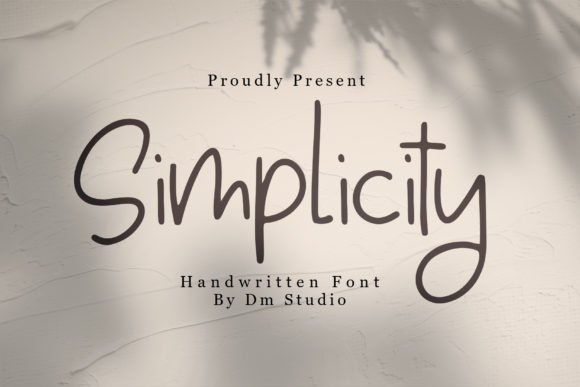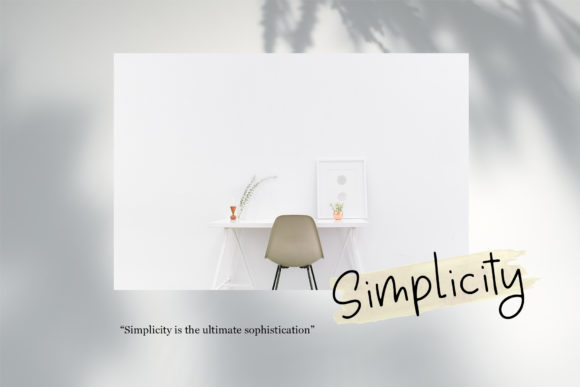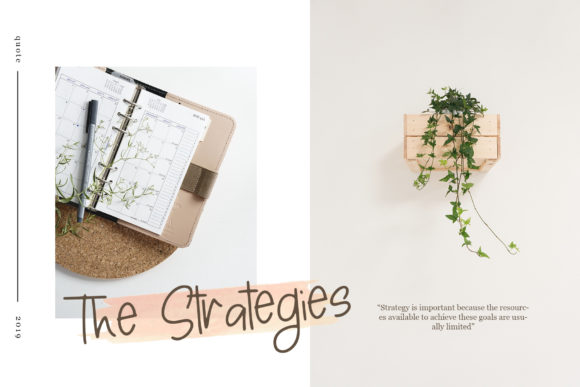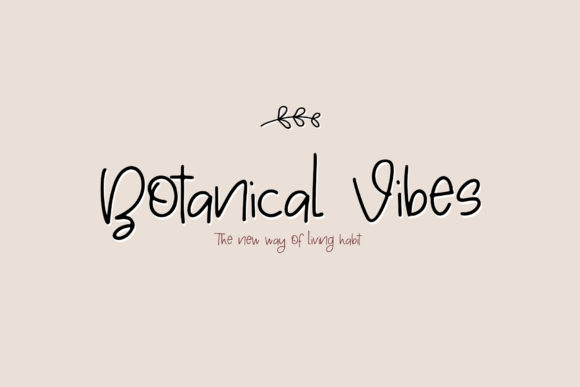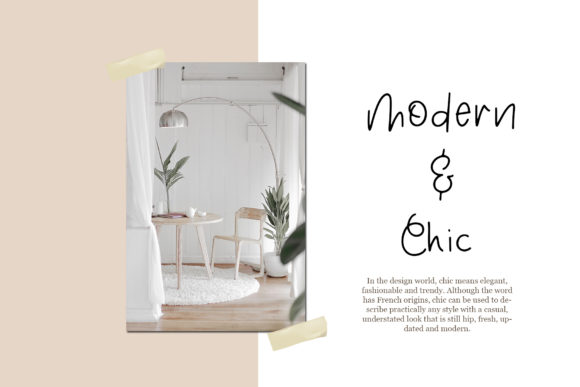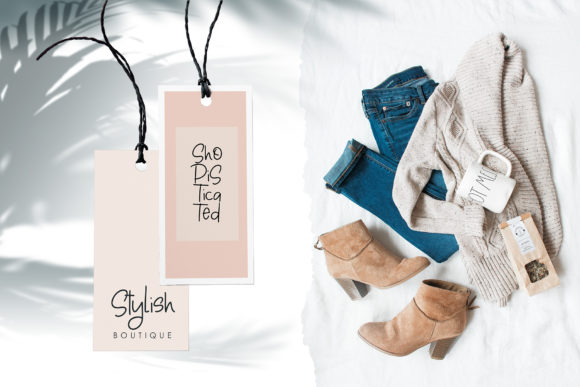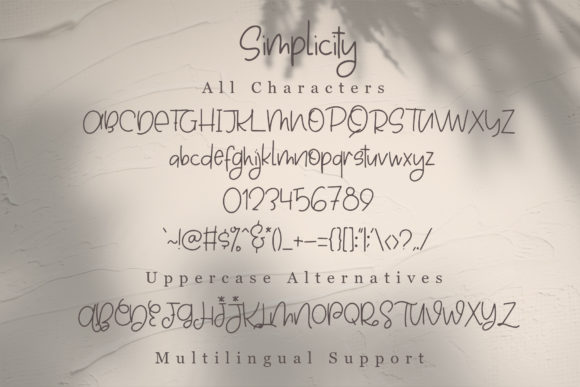
HomeScript FontsSimplicity Font Script Fonts Simplicity Font FacebookXPinterestWhatsApp Simplicity Font Poster 2 Simplicity Font Poster 3 Simplicity Font Poster 4 Simplicity Font Poster 5 Simplicity Font Poster 6 Simplicity Font Poster 7 About Simplicity Font Simplicity is a stylish handwritten font featuring unique character shapes. Fall in love with its lovely charm! DOWNLOAD NOW People also explored De”Consultant Font Branded Font Fontix Font Sidney Font Heylova Font Mantrabs Font Heritage Font Beskem Font Hat Hat Font 289 0 TagsSimplicity Font Previous articleAlmatter Hustle FontNext articleSegoul Font LEAVE A REPLY Cancel reply Comment: Please enter your comment! Name:* Please enter your name here Email:* You have entered an incorrect email address! Please enter your email address here Website: Save my name, email, and website in this browser for the next time I comment. Personal Use Free Dream Personal Use Free Read more about this font Bridgetown Font Personal Use Free Read more about this font 08 Underground Personal Use Free Read more about this font Super Discount Personal Use Free Read more about this font BLOG Free vs Paid Fonts: Why Investing in Premium Fonts Is Worth It Free vs Paid Fonts: Why Premium Fonts Are Worth It in 2025 The debate of free vs paid fonts continues in the design world. While... Transform Your Website: Elevate Your Typography with 7 Best Web Font Generators 5 Fonts That Will Dominate Design Trends in 2026 Top 10 Handwritten Fonts That Elevate Your Designs